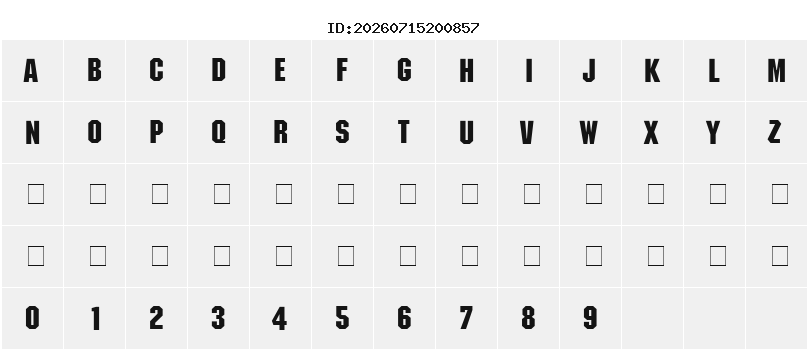
Automaton Caps SSi Preview
• Font Name: Automaton Caps SSi
• Full Font Name: Automaton Caps SSi
About Automaton Caps SSi.ttf
Automaton Caps SSi.ttf is a modern, elegant sans-serif font designed for ultimate readability and visual harmony. Perfect for branding, headlines, web design, and print materials.